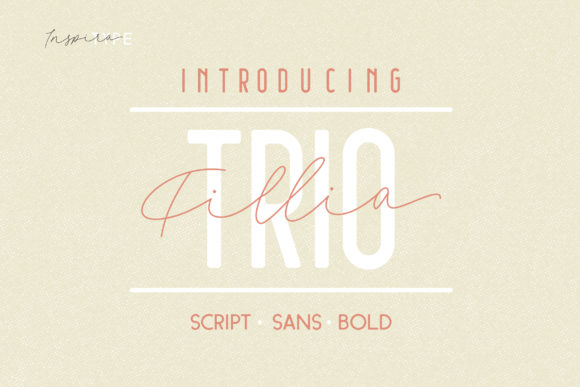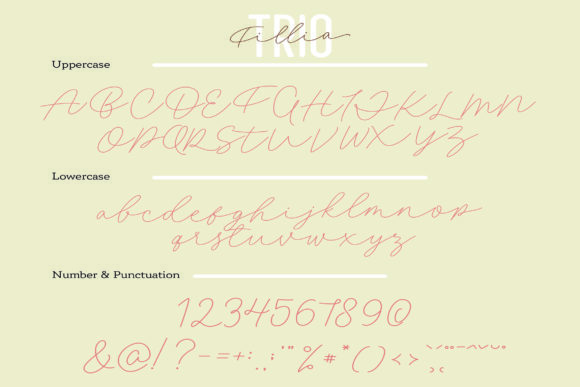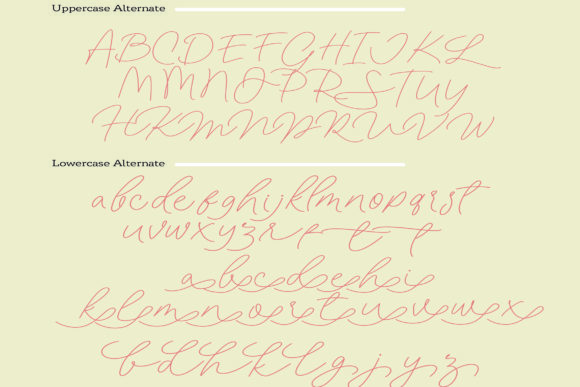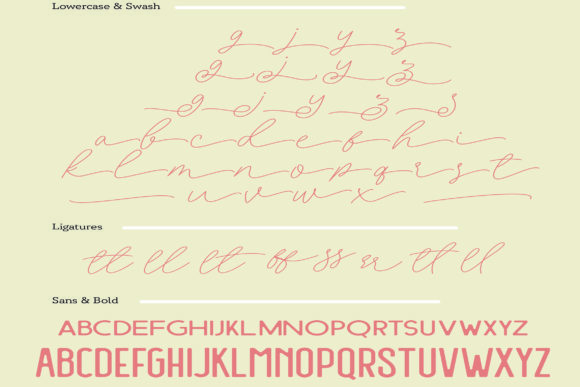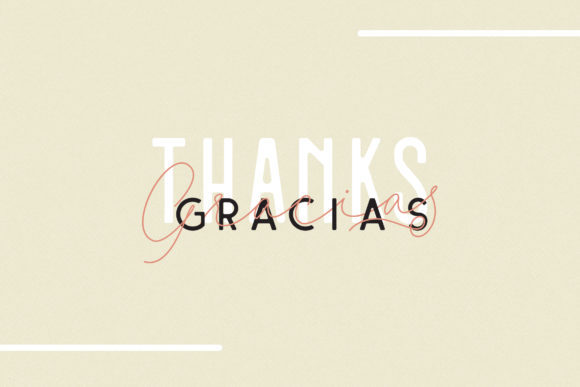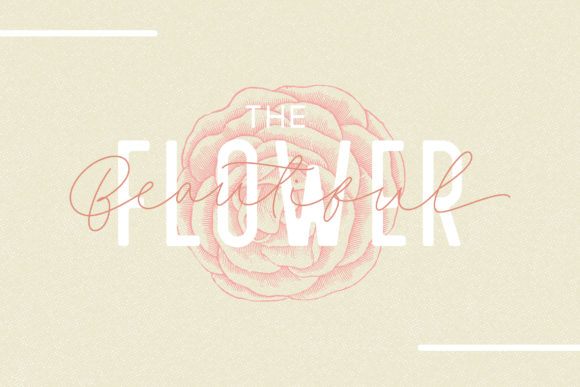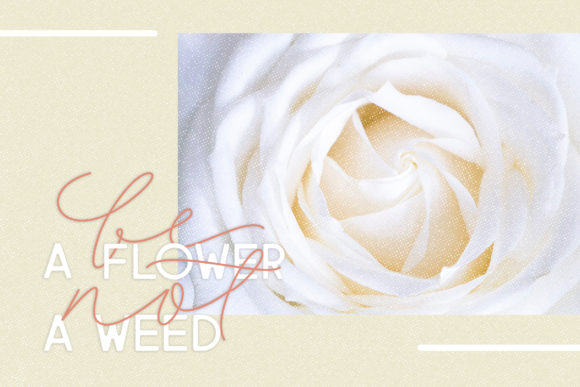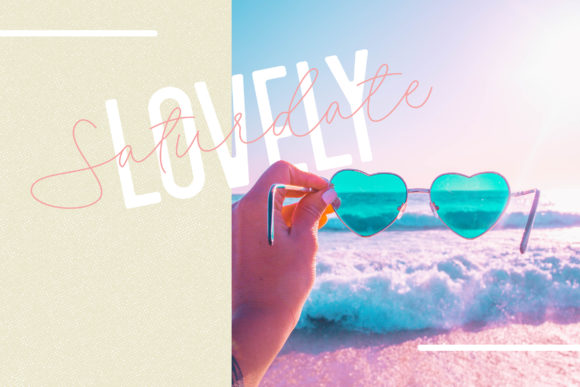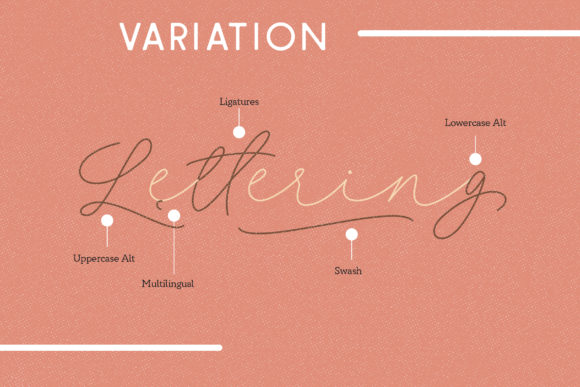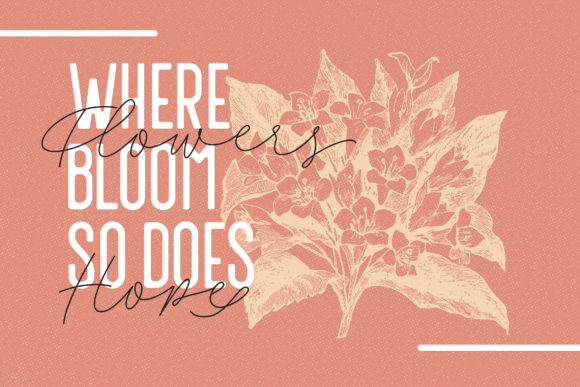
HomeScript FontsFilia Font Script Fonts Filia Font FacebookXPinterestWhatsApp Filia Font Poster 2 Filia Font Poster 3 Filia Font Poster 4 Filia Font Poster 5 Filia Font Poster 6 Filia Font Poster 7 Filia Font Poster 8 Filia Font Poster 9 Filia Font Poster 10 Filia Font Poster 11 Filia Font Poster 12 Filia Font Poster 13 About Filia Font Inspired by classic posters, Filia is a unique display font trio with a distinct retro feel. DOWNLOAD ON CREATIVE FABRICAThis font is sold and delivered by Creative Fabrica. Font Canyon may earn a commission if you buy through this link. People also explored The Author Font Autumn Rainbow Font Economica Beautiful Beach Font Christania Font January Font Flexible Things Font Gardenia Font Halloween Font 461 0 TagsFilia Font Previous articleBrush Hours FontNext articleRosita Font LEAVE A REPLY Cancel reply Comment: Please enter your comment! Name:* Please enter your name here Email:* You have entered an incorrect email address! Please enter your email address here Website: Save my name, email, and website in this browser for the next time I comment. Personal Use Free A New Nattyla Personal Use Free Read more about this font Foo Personal Use Free Read more about this font Green Farmhouse Personal Use Free Read more about this font Braindly Personal Use Free Read more about this font BLOG Elegant Wedding Invitation Fonts – Handwritten & Script Fonts Elegant Wedding Invitation Fonts Your wedding day is one of the most important moments of your life, and every detail matters—including your invitation design. Our... Transform Your Website: Elevate Your Typography with 7 Best Web Font Generators Exploring Font Trends How to Install and Use Fonts on Windows, macOS, and Web Projects